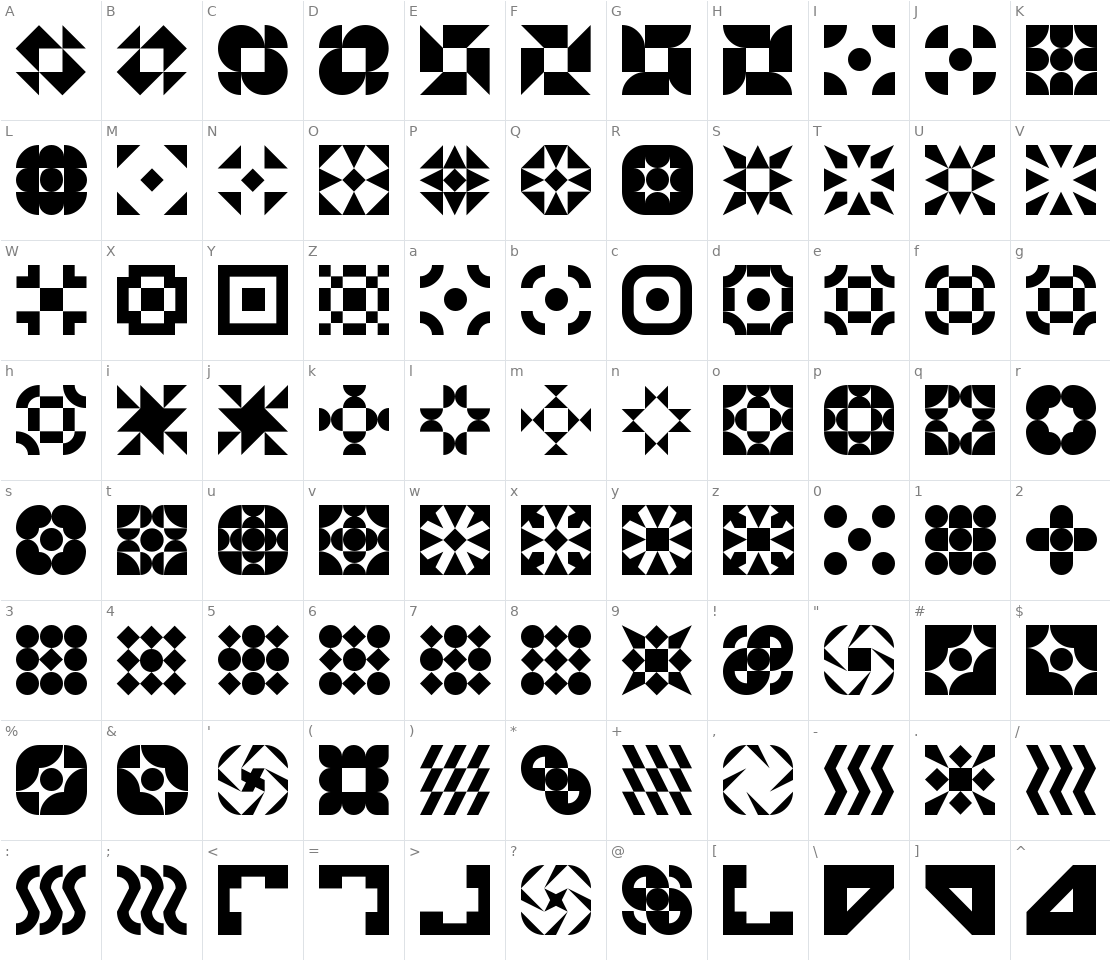
5 Geomedings
5 Geomedings is a geometric symbol font from Winter Design Studio, offering a set of bold abstract shapes, patterns, and tile-like icons rather than traditional letters. The forms are clean and graphic, useful for creating decorative borders, pattern fills, or visual accents in layouts where you need structured ornamentation without reaching for clip art.